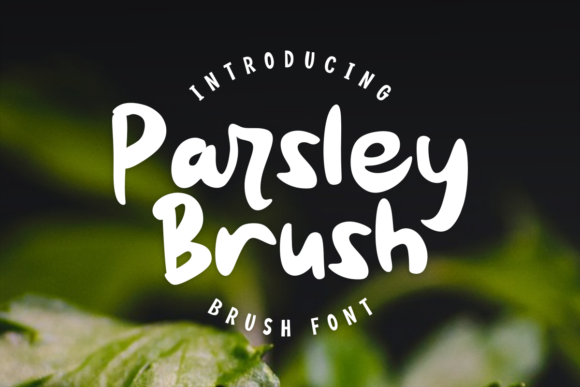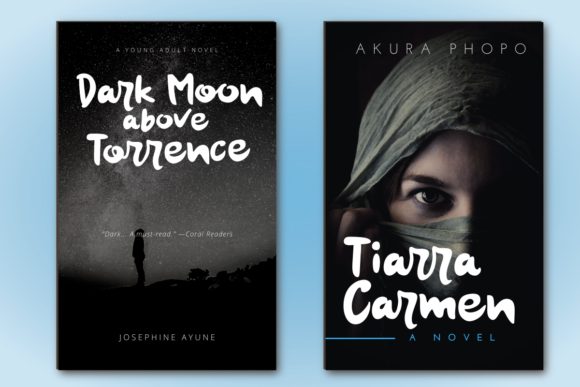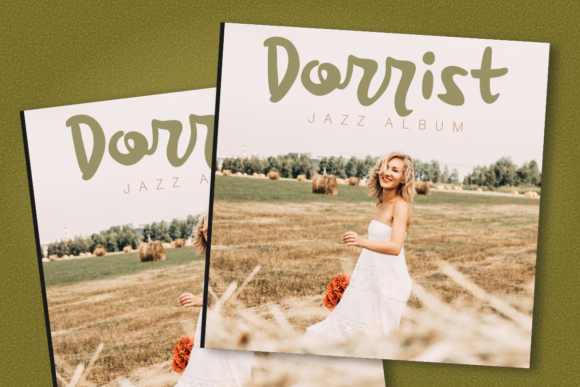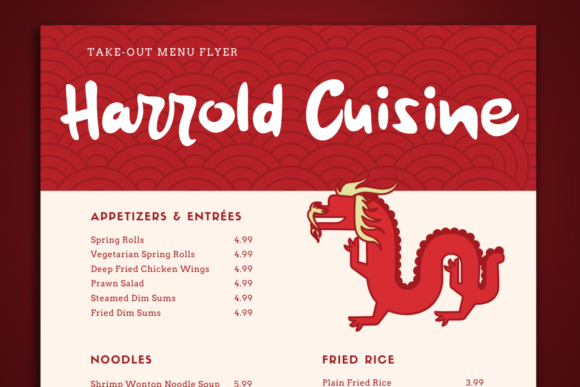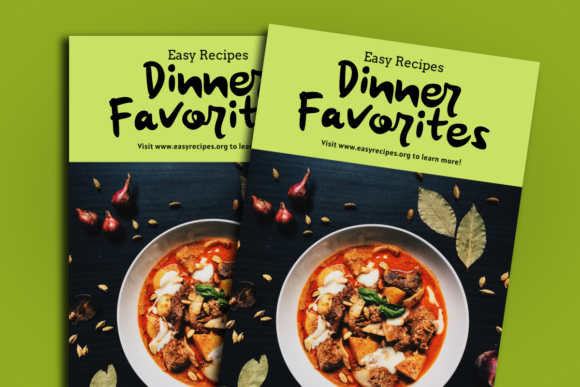
Parsley Brush Font
About Parsley Brush Font
Parsley Brush is a chunky lettered handwritten font, created with the help of a lovely brush pen. It looks stunning on wedding invitations, thank you cards, quotes, greeting cards, logos, business cards and every other design which needs a handwritten touch.